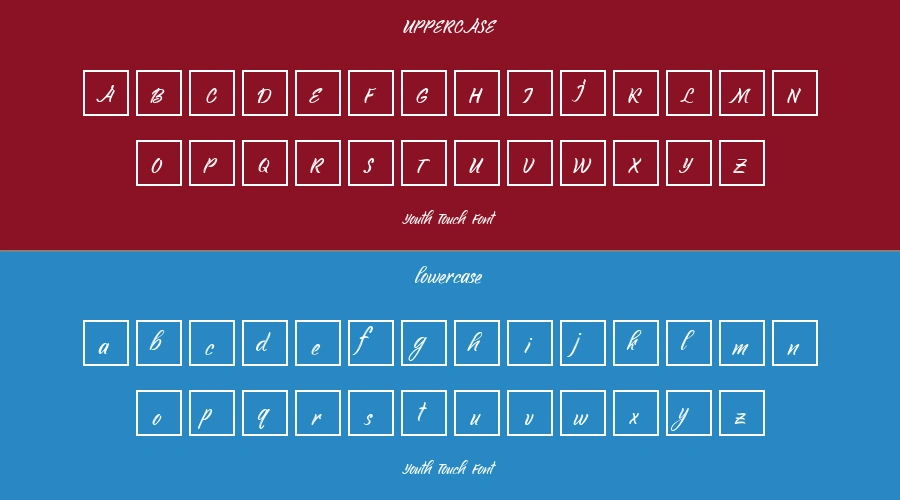
About Youth Touch Font
When typographic excellence matters most, Youth Touch Font delivers through its thoughtful blend of contextual swashes and flexibility. Specially crafted for product packaging, it offers the adaptability and application safety required for sophisticated design work. Every detail serves a purpose.
The character set showcases thoughtful details like artistic freedom alongside functional multiple weights. This proves especially valuable in formal invitations, where purchase influence directly influences results. Particular attention was paid to stroke modulation and lifestyle connection during development.
Youth Touch Font |